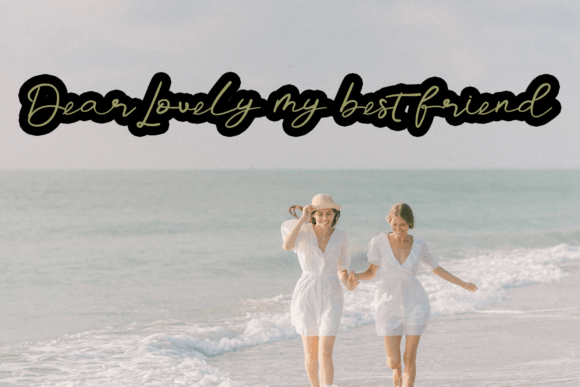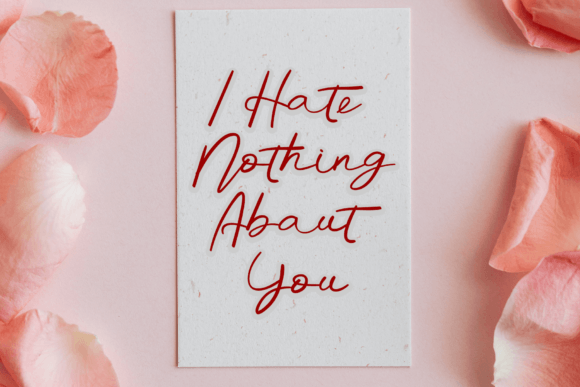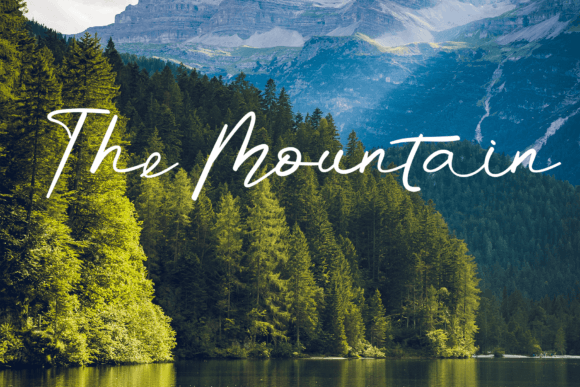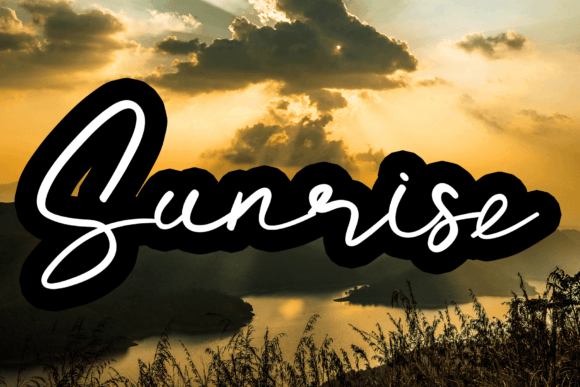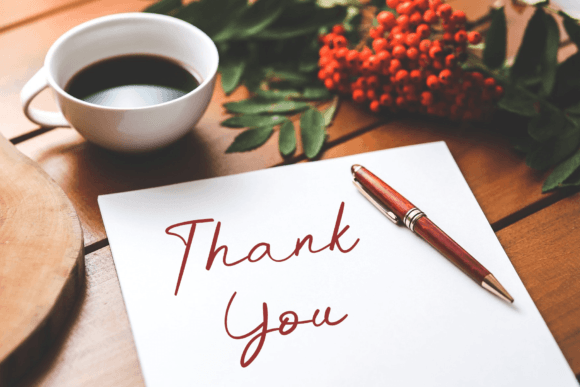
Handmade Summer Font
About Handmade Summer Font
Handmade Summer is a unique round-lettered handwritten font, carefully crafted to be used on titles, invitations, letters, and many other products. Add it to your creative projects and be amazed at the results!